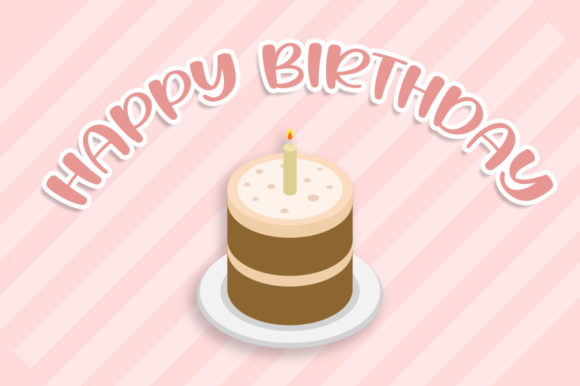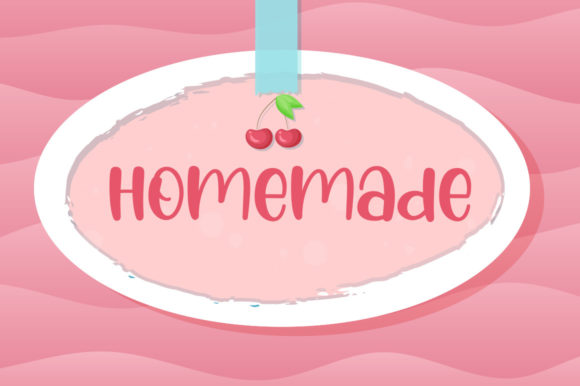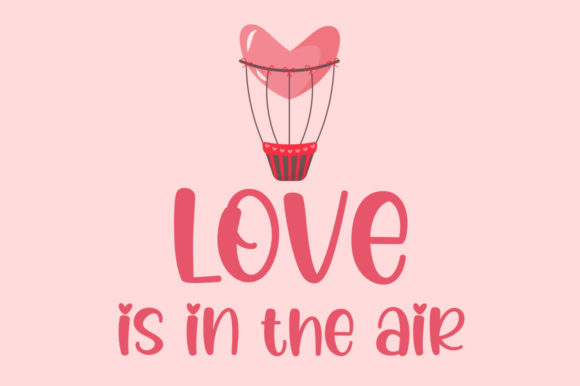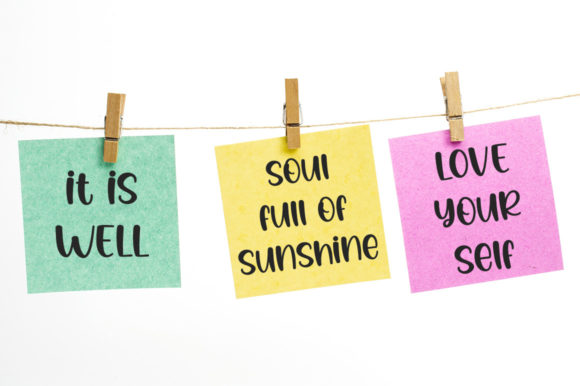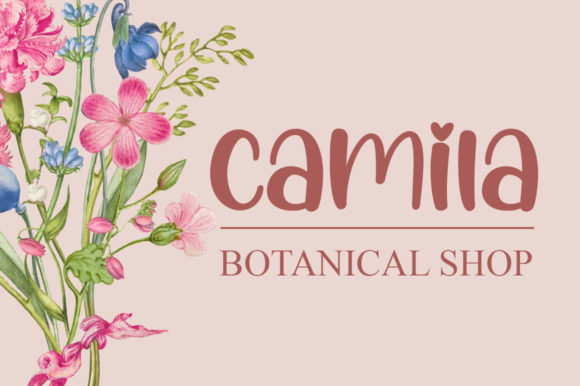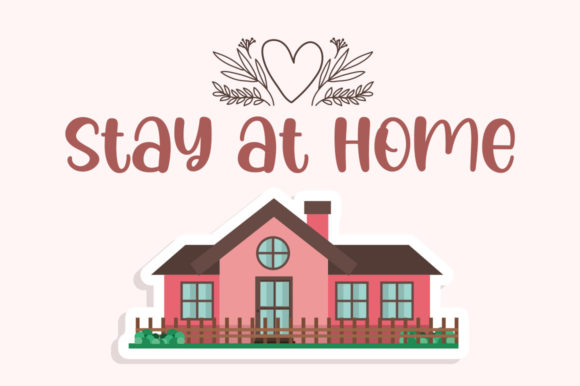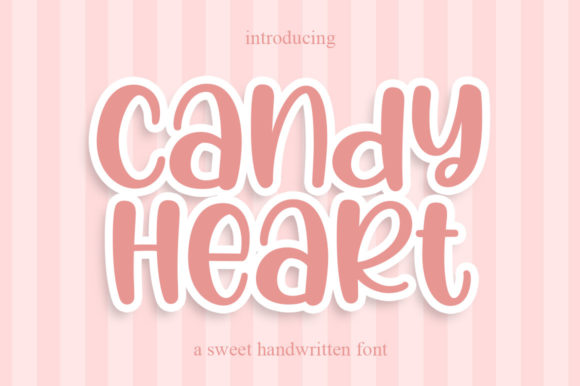
Candy Heart Font: The Sweetest Addition to Your Design Toolbox
Are you a designer, crafter, or educator looking for a font that adds a touch of whimsy and charm to your projects? Look no further than the Candy Heart Font! This delicate and simple-lettered display font is perfect for creating chalkboard quotes, teaching materials, and other designs that require a personal and realistic feel.
What is Candy Heart Font?
Candy Heart Font is a unique and elegant font that is inspired by traditional candy heart messages. Its authentic look and feel make it an ideal choice for designers and crafters who want to add a touch of nostalgia and sweetness to their projects. The font features delicate and simple lettering, making it perfect for use on chalkboards, signs, and other materials where a personal touch is desired.
Key Features of Candy Heart Font
- Delicate and Simple Lettering: The Candy Heart Font features delicate and simple lettering that is perfect for creating chalkboard quotes and teaching materials.
- Authentic Look: The font has an authentic look that adds a personal and realistic feel to your designs.
- Perfect for Chalkboard Designs: The font is specifically designed for use on chalkboards, making it perfect for creating quotes, signs, and other materials.
- Easy to Read: The font is easy to read, making it perfect for use on teaching materials, signs, and other projects where clarity is important.
Uses for Candy Heart Font
Candy Heart Font is a versatile font that can be used in a variety of projects, including:
- Chalkboard Quotes: Use the font to create beautiful and inspiring quotes on chalkboards.
- Teaching Materials: The font is perfect for use on teaching materials, such as worksheets, handouts, and presentations.
- Crafting Projects: Use the font to add a personal touch to your crafting projects, such as scrapbooking, card making, and DIY signs.
- Signs and Posters: The font is perfect for use on signs and posters, adding a touch of whimsy and charm to your designs.
Tips for Using Candy Heart Font
Here are a few tips for using Candy Heart Font in your projects:
- Use it with Chalkboard Backgrounds: The font is specifically designed for use on chalkboards, so try pairing it with chalkboard backgrounds for a authentic look.
- Experiment with Colors: The font looks great in a variety of colors, so don’t be afraid to experiment and find the perfect color for your project.
- Pair it with Other Fonts: Candy Heart Font pairs well with other fonts, so try combining it with other fonts to create a unique and interesting look.
Candy Heart Font is a beautiful and versatile font that is perfect for designers, crafters, and educators. Its delicate and simple lettering, authentic look, and ease of use make it an ideal choice for a variety of projects. Whether you’re creating chalkboard quotes, teaching materials, or crafting projects, Candy Heart Font is sure to add a touch of whimsy and charm to your designs.